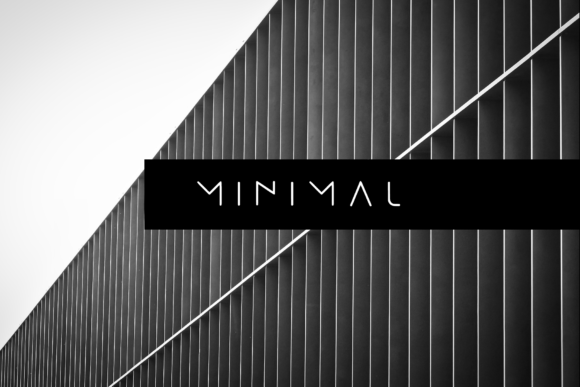
Step into a world of captivating typography, where the Minimal Font family redefines simplicity and elegance. Its futuristic aura invites you to explore a realm of innovation and creativity like never before.
Crafted with precision by the talented moonbandit, Minimal embodies the essence of modern design, characterized by its clean lines, geometric shapes, and a touch of avant-garde flair. Each letterform is a testament to minimalistic beauty, exuding an understated sophistication that elevates any project.
Unleash your artistic vision with Minimal's versatile sans serif style, perfect for a wide range of applications. From eye-catching headlines to sleek logos, this remarkable font family adapts seamlessly to your creative needs, adding a touch of futuristic charm to every design.
Whether you're a seasoned graphic designer or just starting your design journey, Minimal is the perfect companion to bring your ideas to life. Its simplicity empowers you to create stunning designs with minimal effort, allowing your creativity to shine through.
Embrace the future of typography with Minimal, the font family that inspires innovation and ignites your imagination. Experience the fusion of elegance and modernism, and let your designs take center stage.